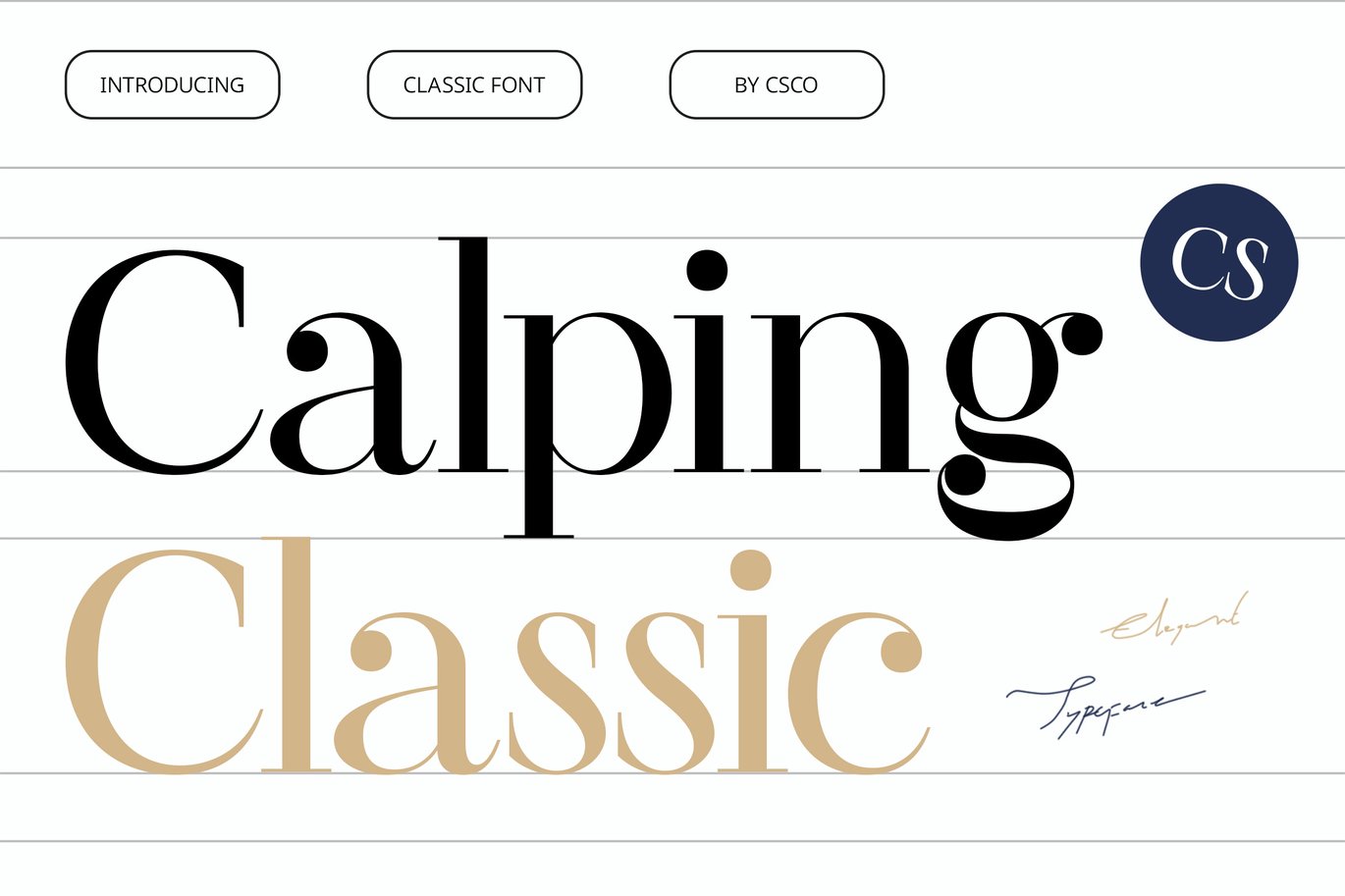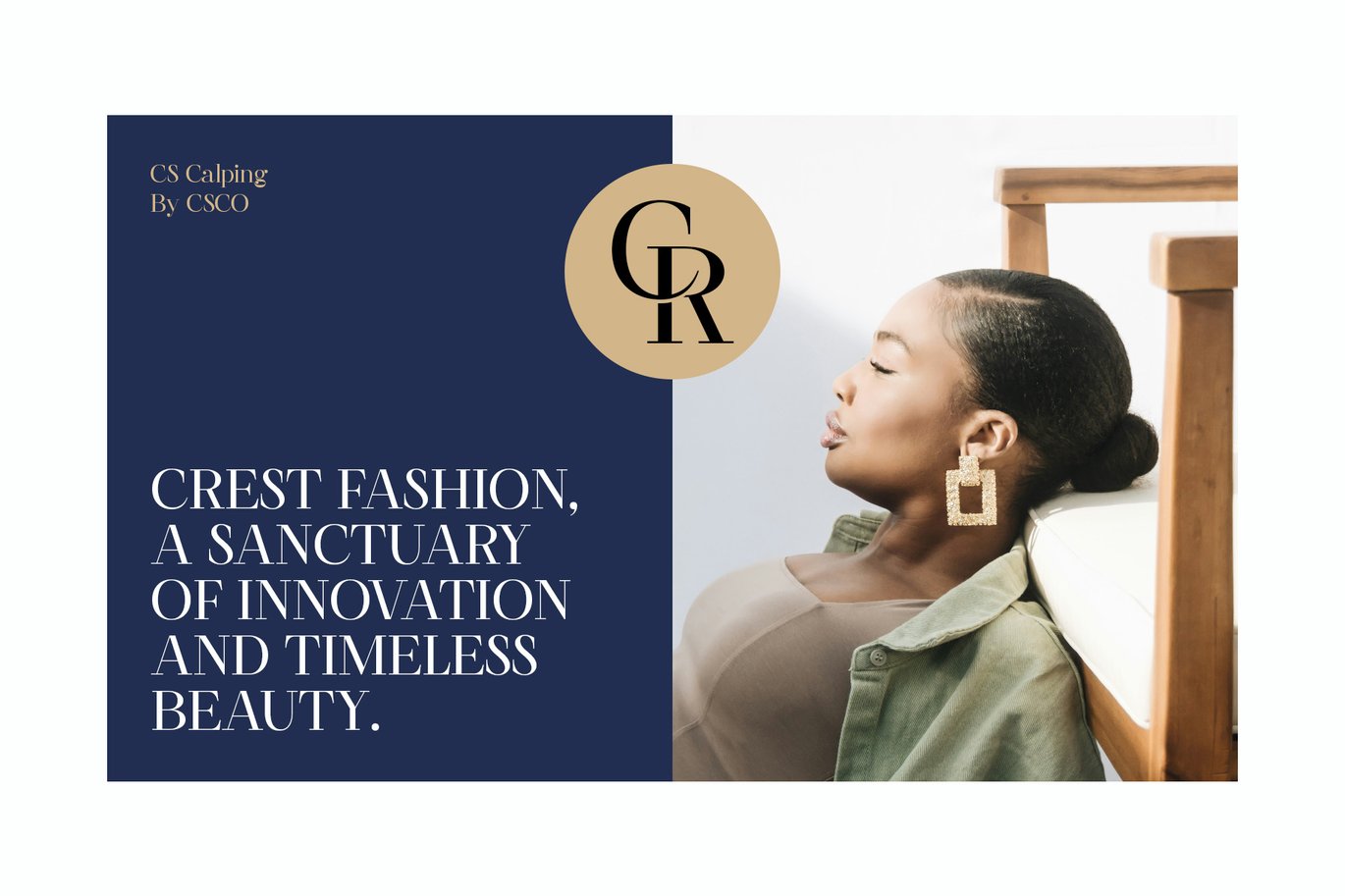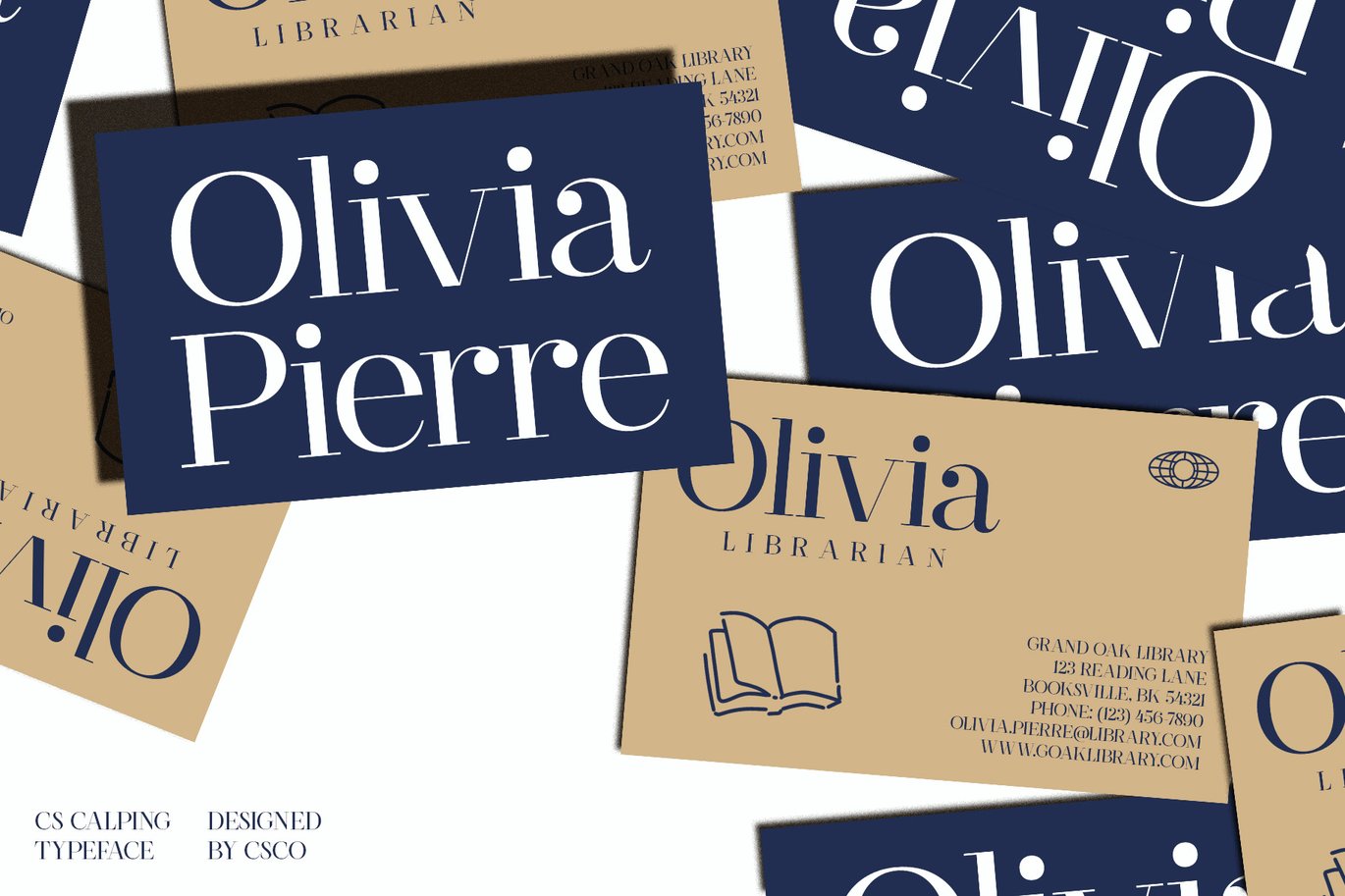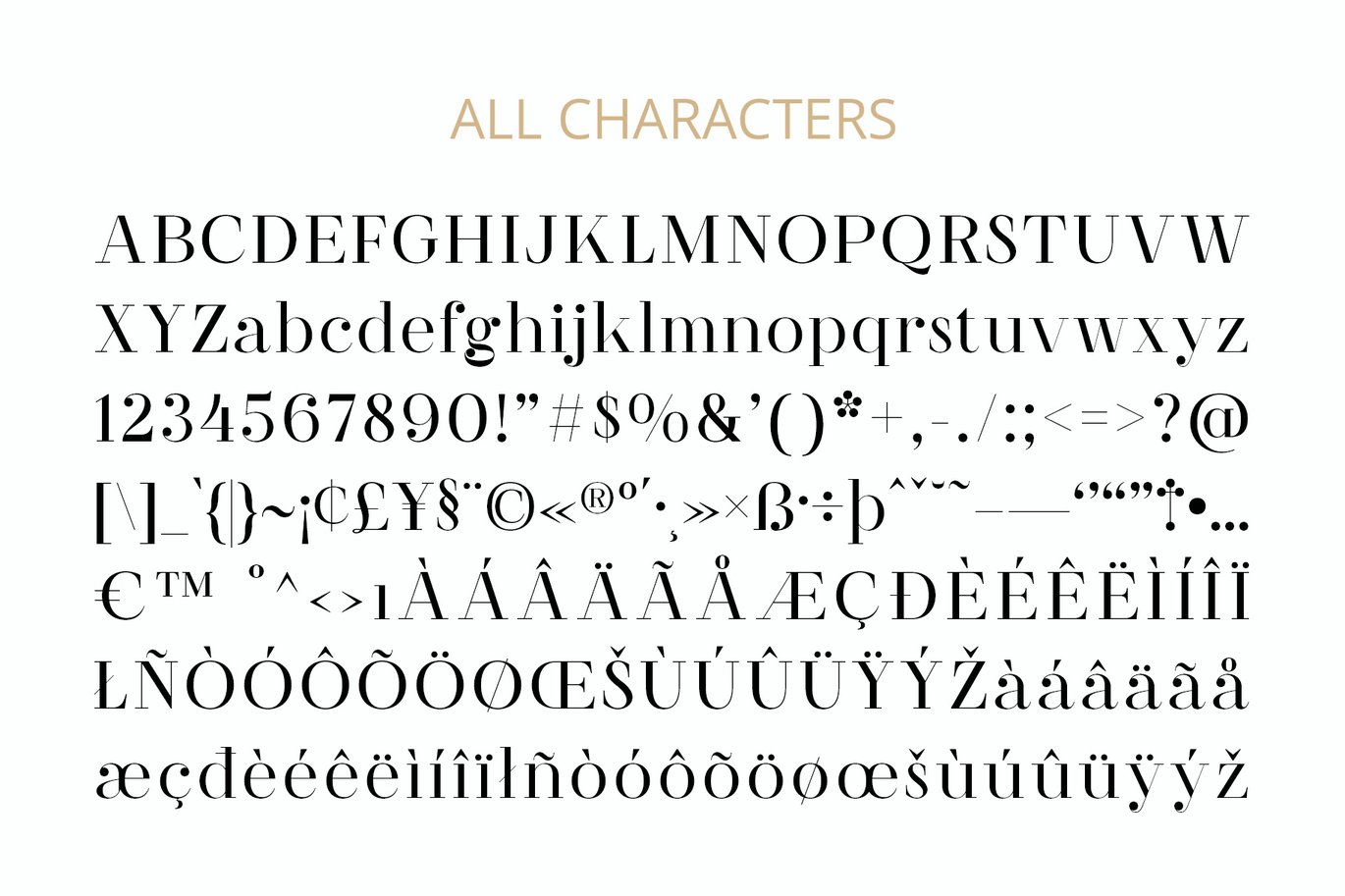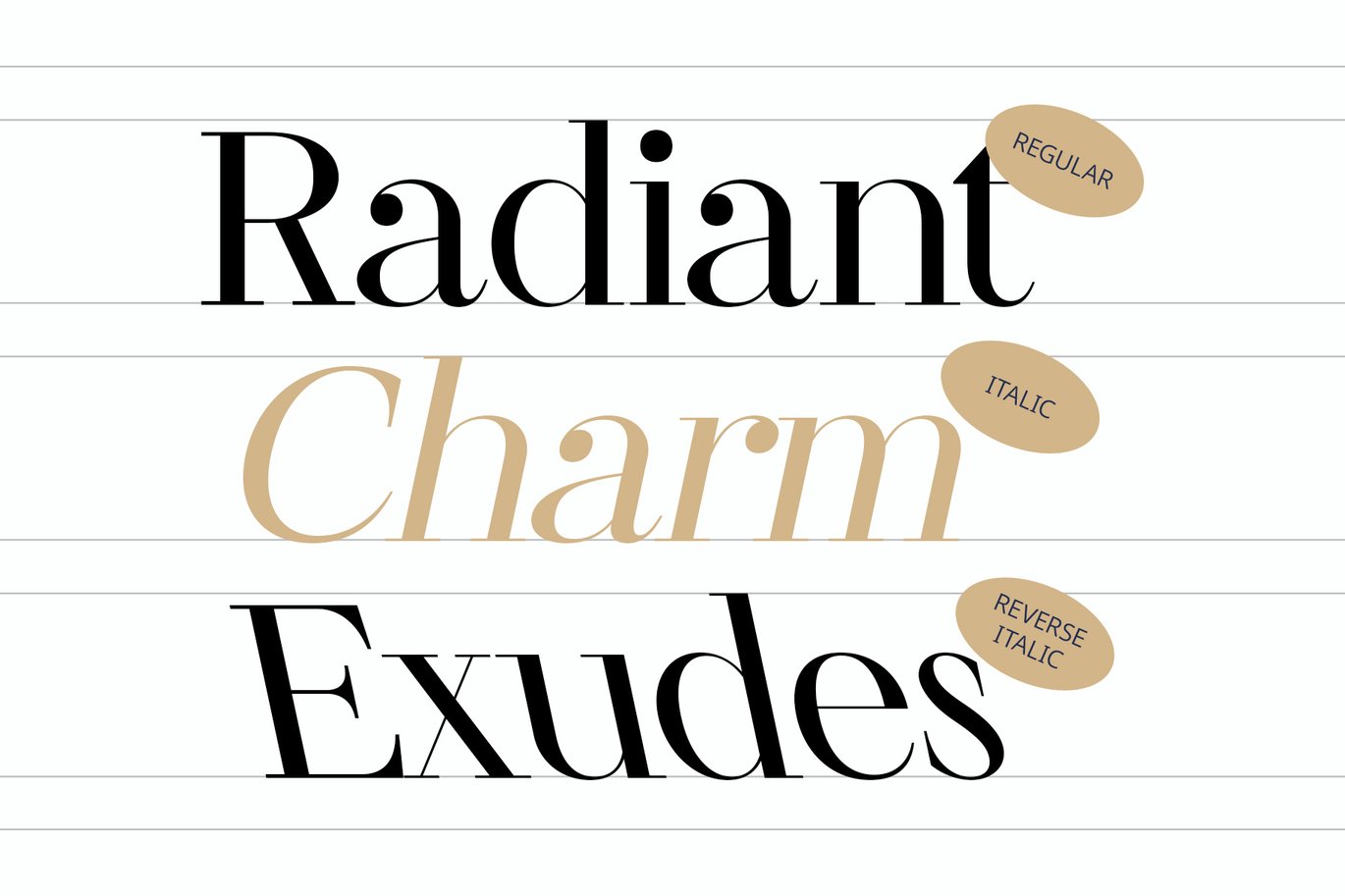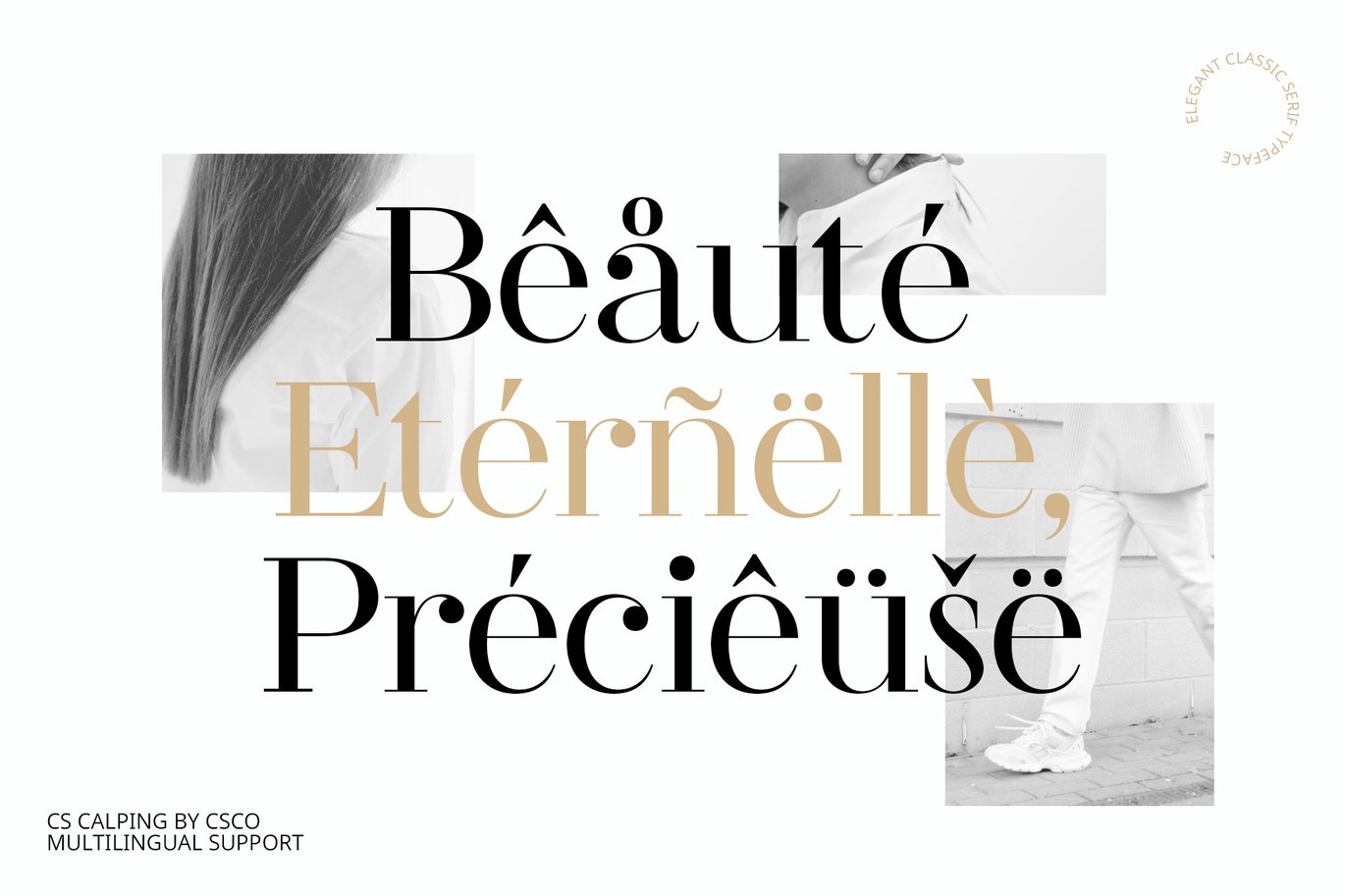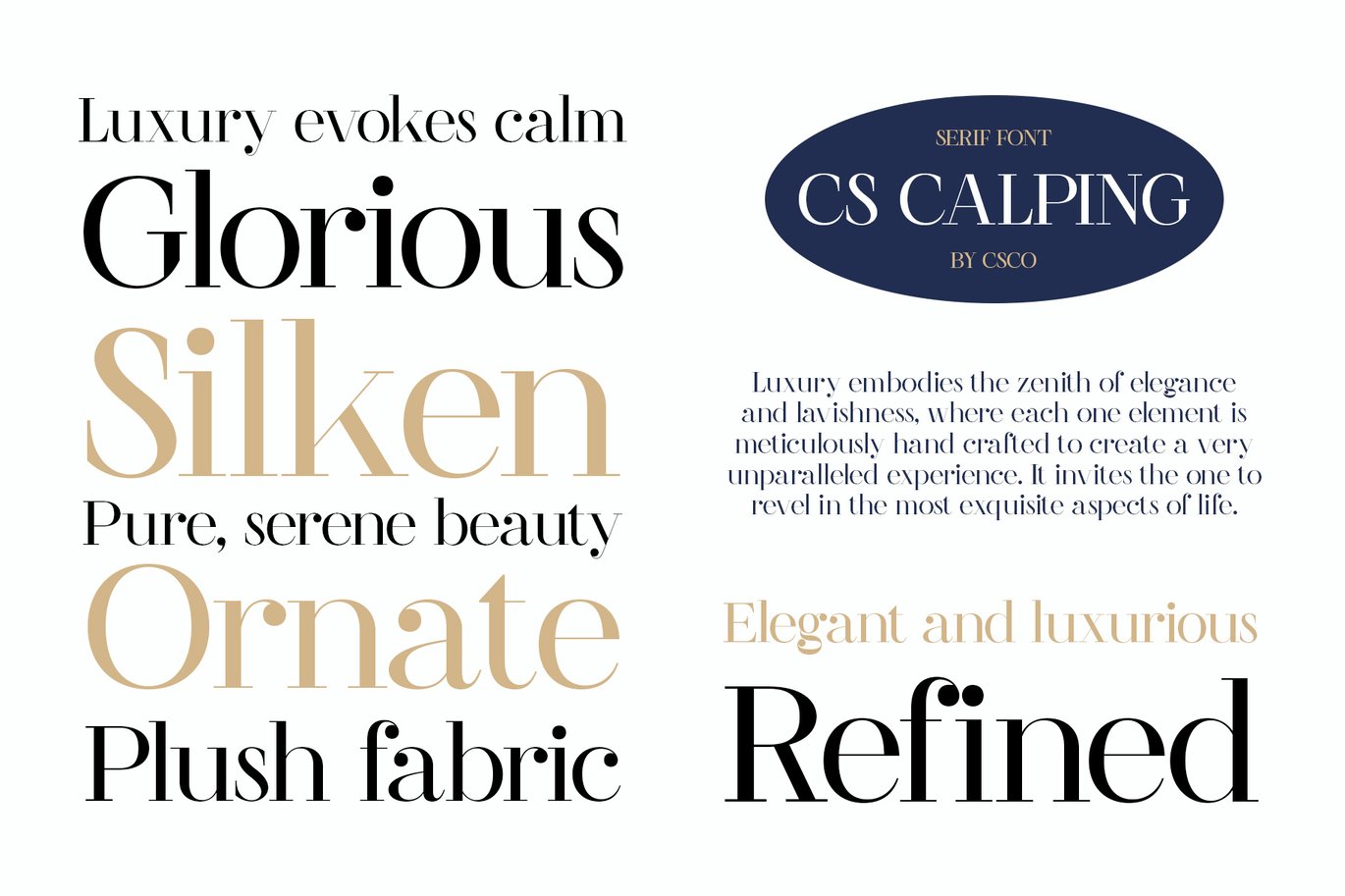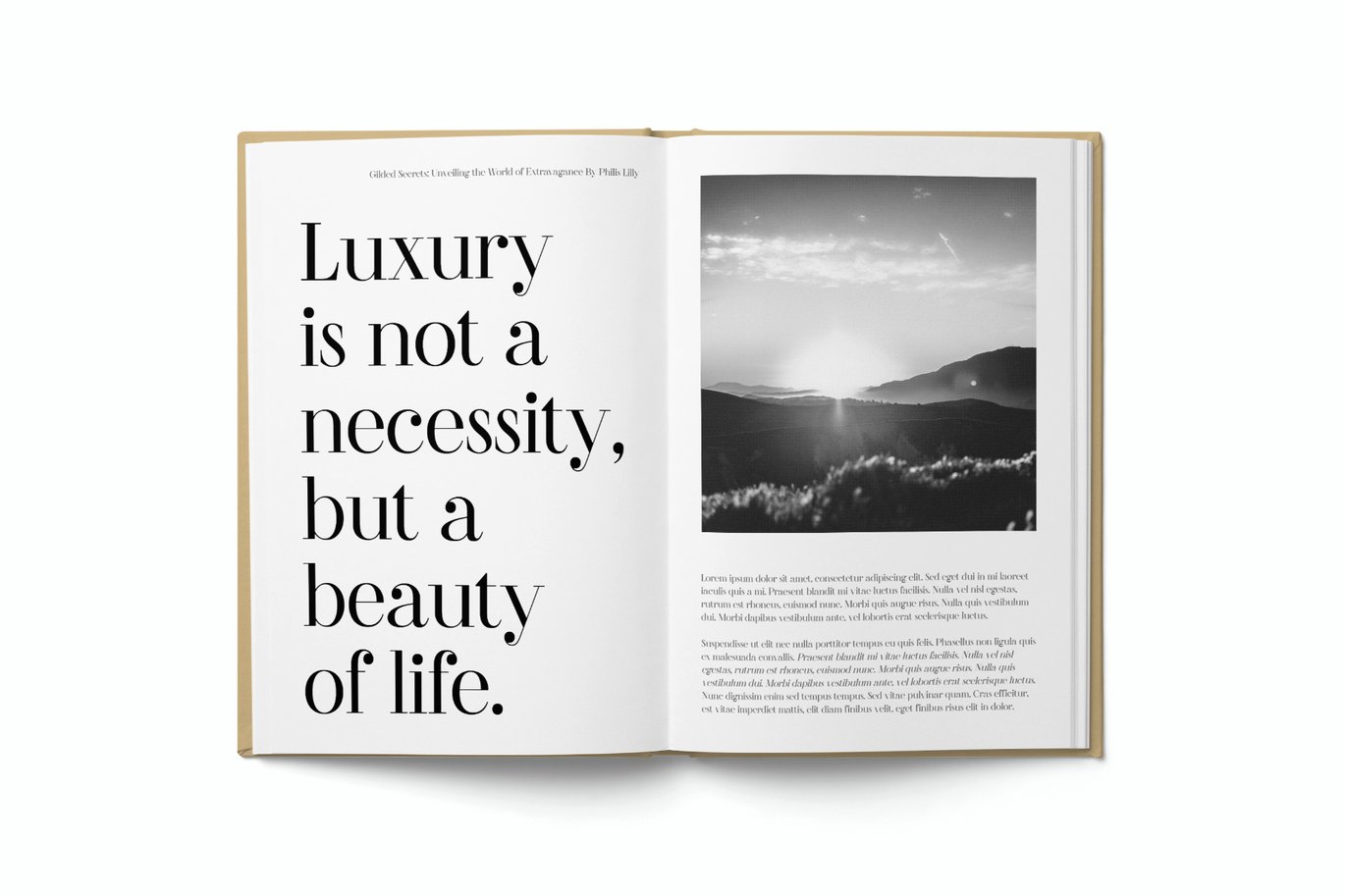
CS Calping – Classic Font
CS Calping – Classic Didone Serif Font
Timeless Elegance and Refined Aesthetics
CS Calping is a Didone serif font that masterfully blends classic elegance with sophisticated design. Its defining feature is the striking contrast between thick and thin strokes, coupled with sharp, elegant serifs. This high contrast and intricate detailing contribute to a highly structured and polished appearance, embodying the essence of refined aesthetics.
Luxurious and Formal Appeal
The luxurious and formal character of CS Calping makes it ideal for projects that require a touch of opulence and grandeur. Whether used for wedding invitations, fashion editorials, or premium branding, this Didone font exudes timeless sophistication and class. Its elegant design provides a perfect balance of tradition and modernity, adding a sense of high-end refinement to any project.
Versatile for Upscale Design Projects
CS Calping is versatile and well-suited for a range of upscale design applications. Its classic and upscale look ensures it stands out in formal settings and high-profile branding, delivering a captivating and enduring impression. The font’s combination of classic elegance and modern refinement makes it a distinguished choice for creating memorable and impactful designs.